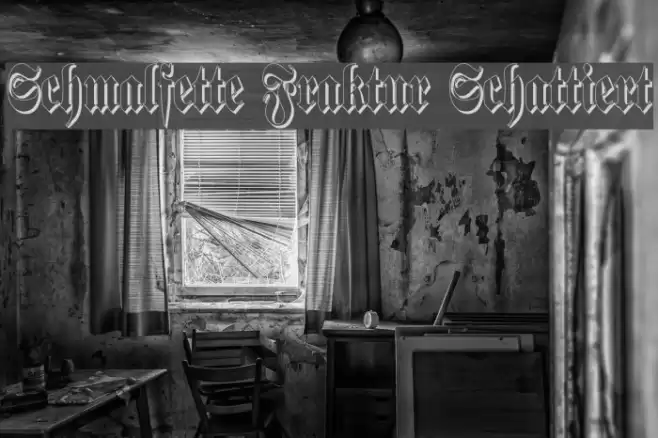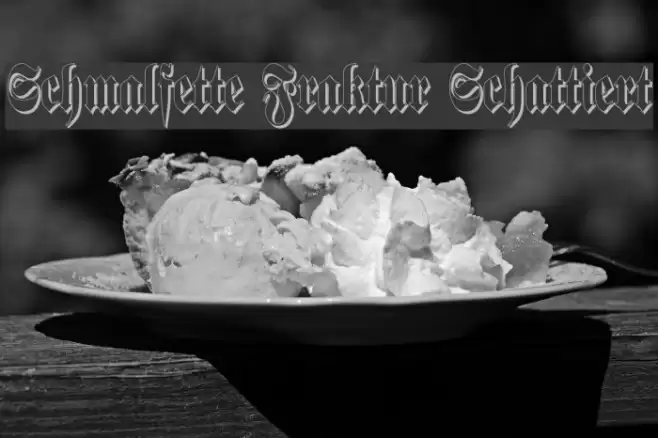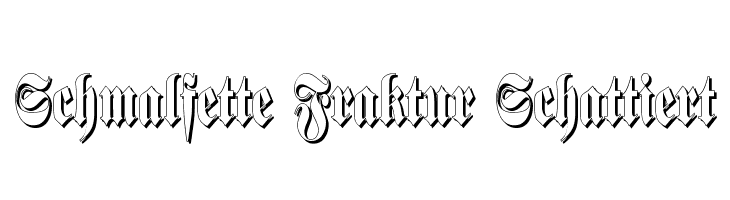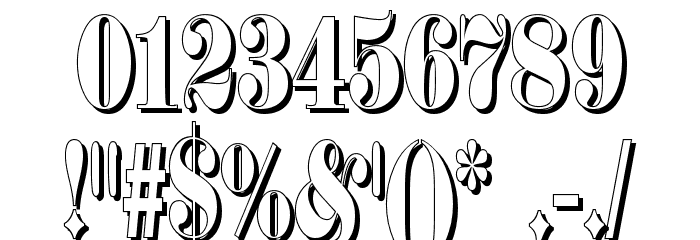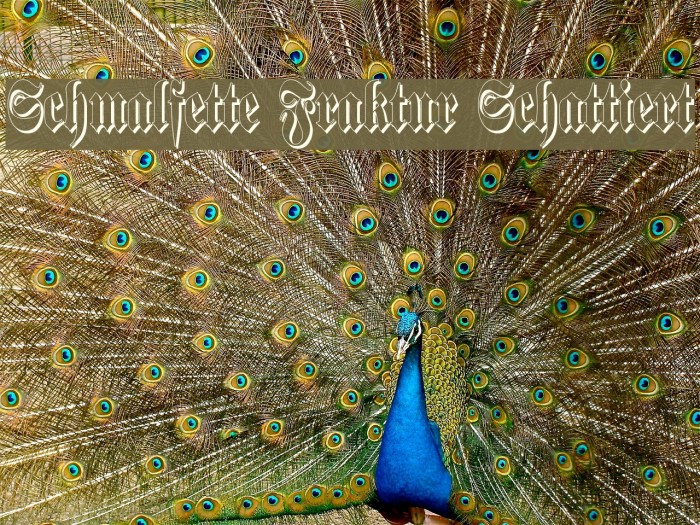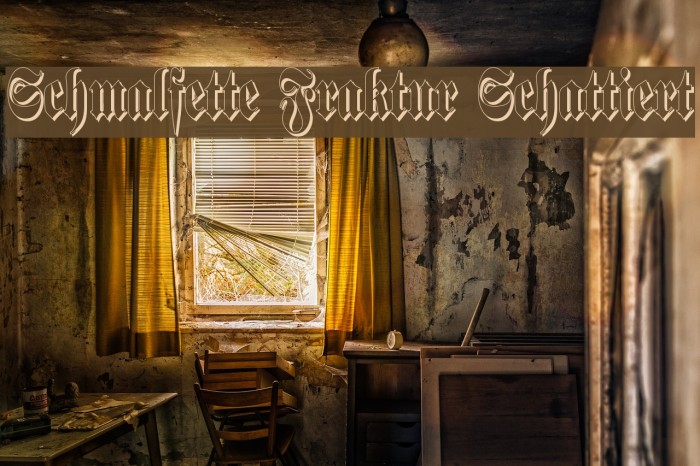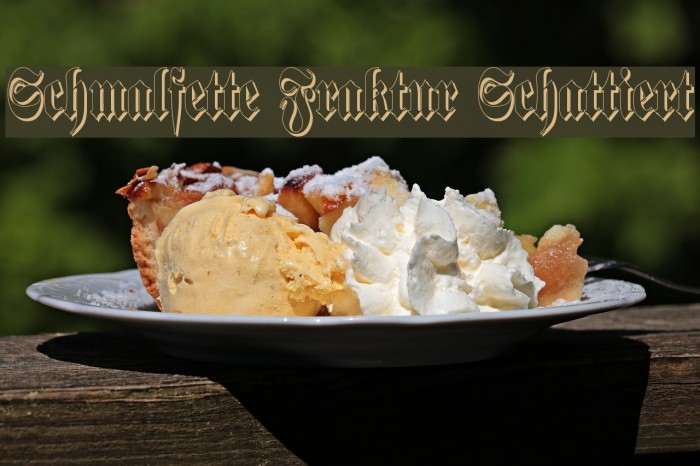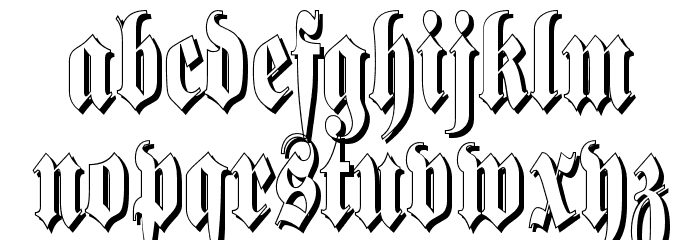
Schmalfette Fraktur Schattiert Font
Schmalfette Fraktur Schattiert Description
This font features a bold and intricate design, reminiscent of traditional Blackletter styles with a modern twist. The letters are characterized by their ornate and angular forms, with sharp serifs and a shadow effect that adds depth and dimension. The uppercase letters are particularly elaborate, while the lowercase letters maintain a consistent style with slightly less complexity. The numerals and special characters follow the same decorative pattern, ensuring a cohesive look across all glyphs. This font exudes a sense of historical elegance and is perfect for projects that require a touch of classic sophistication.
A bold, shadowed Blackletter font with intricate, angular designs from Uncategorized fonts.
- Proposed Projects: Ideal for vintage-themed designs, book covers, posters, and branding that requires a classic and sophisticated touch.
- Overall Style: Vintage
- Use Case: Headlines, Logos, Decorative text